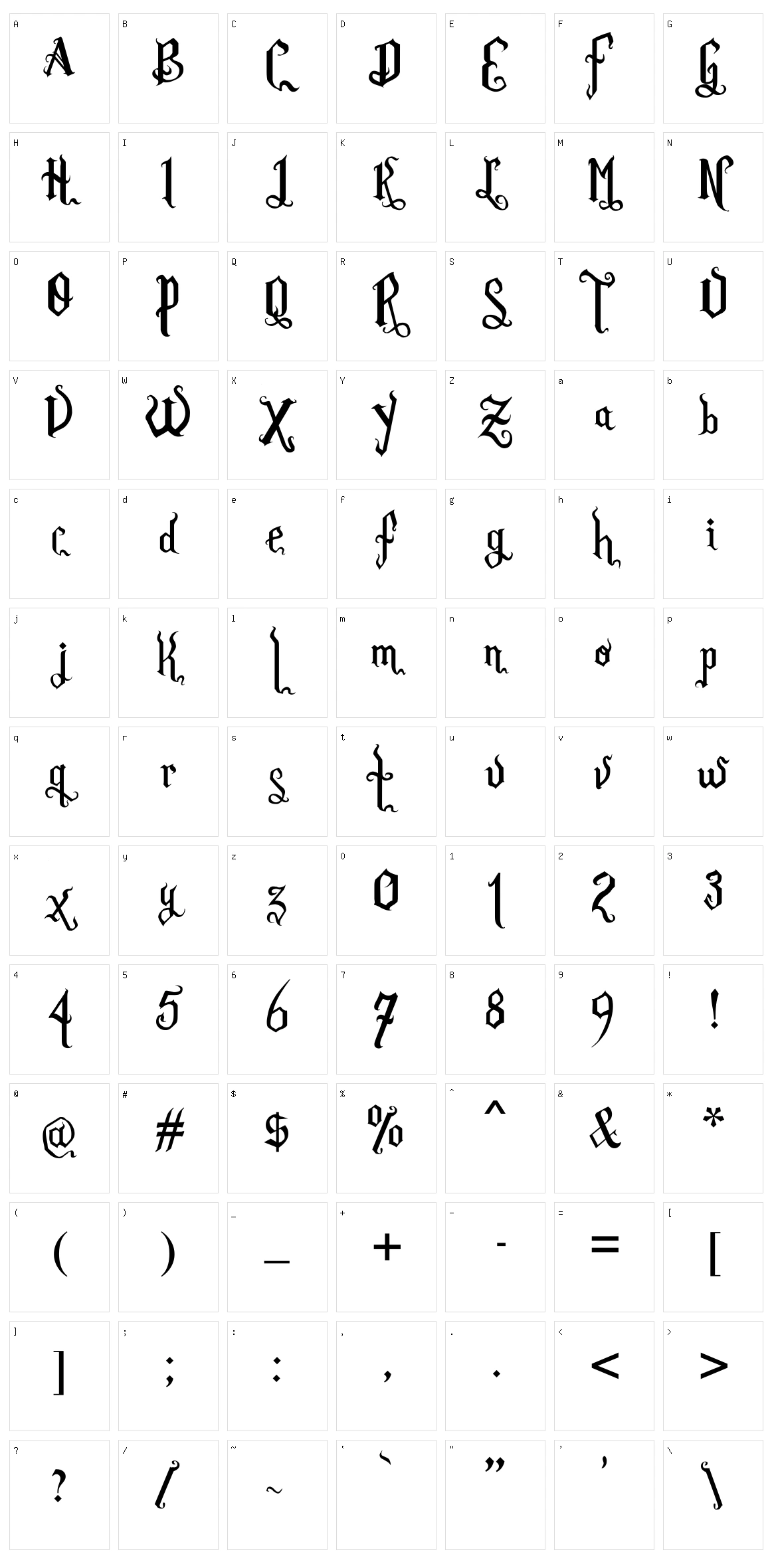
Romance Fatal Goth
Designed by: Juan Casco
Category: Medieval & Gothic
Romance Fatal Goth
(Versal and Premium)
Gothic version of Romance Fatal making a "family" with the others Romance fatal fonts